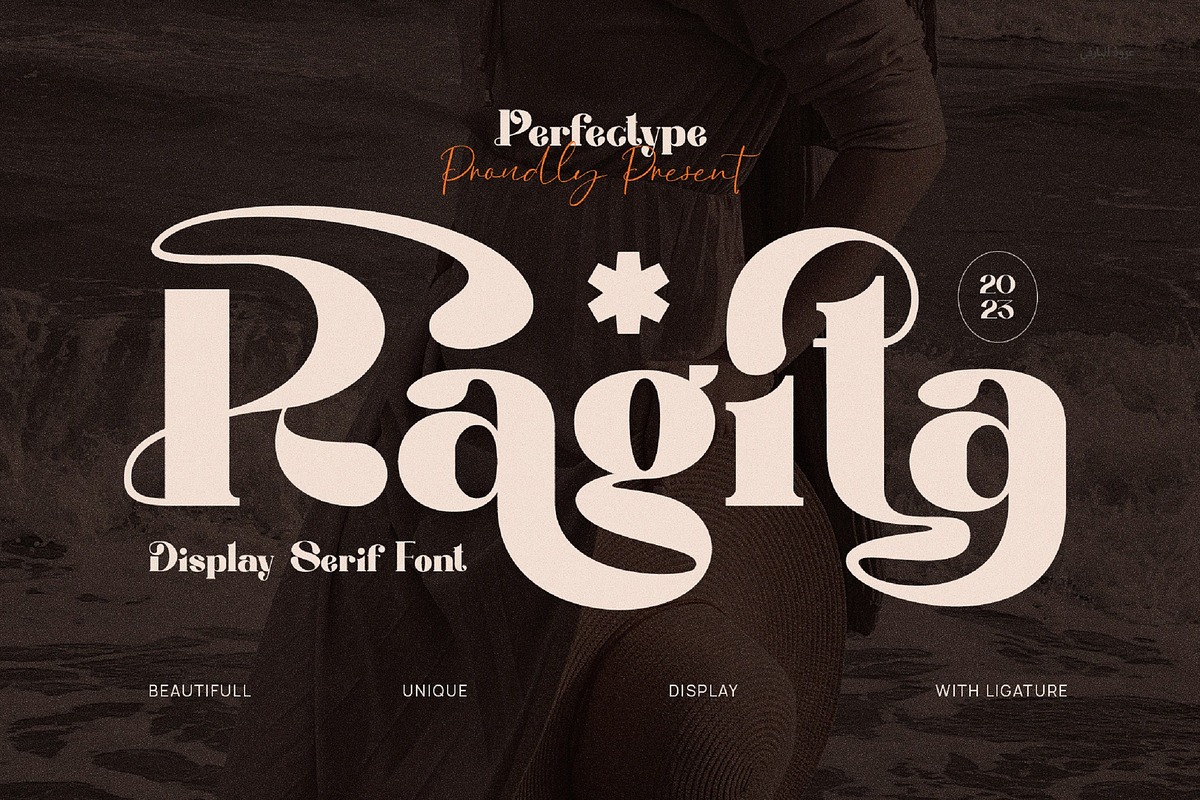
Ragita Font
Ragita Font is a stylish typeface that enhances visual appeal and works effortlessly in many design contexts. Is a unique and very elegant font for branding and logo designs Elegant serif typeface combined with a classy and modern style. This type of font is very suitable for your various needs such as branding projects, logos, wedding designs, social media posts, advertisements, product packaging, product designs, labels, photography, watermarks, invitations, stationery, and any project, created with high level of readability. you will not be disappointed if you buy this font!!